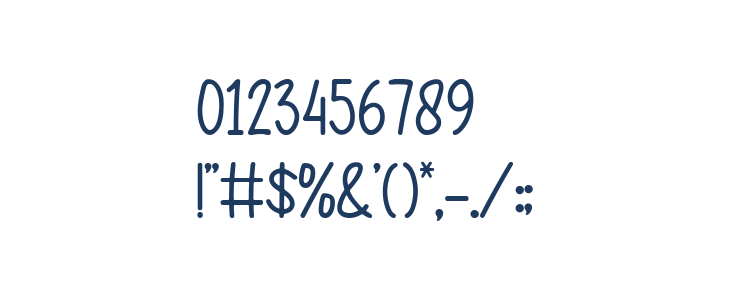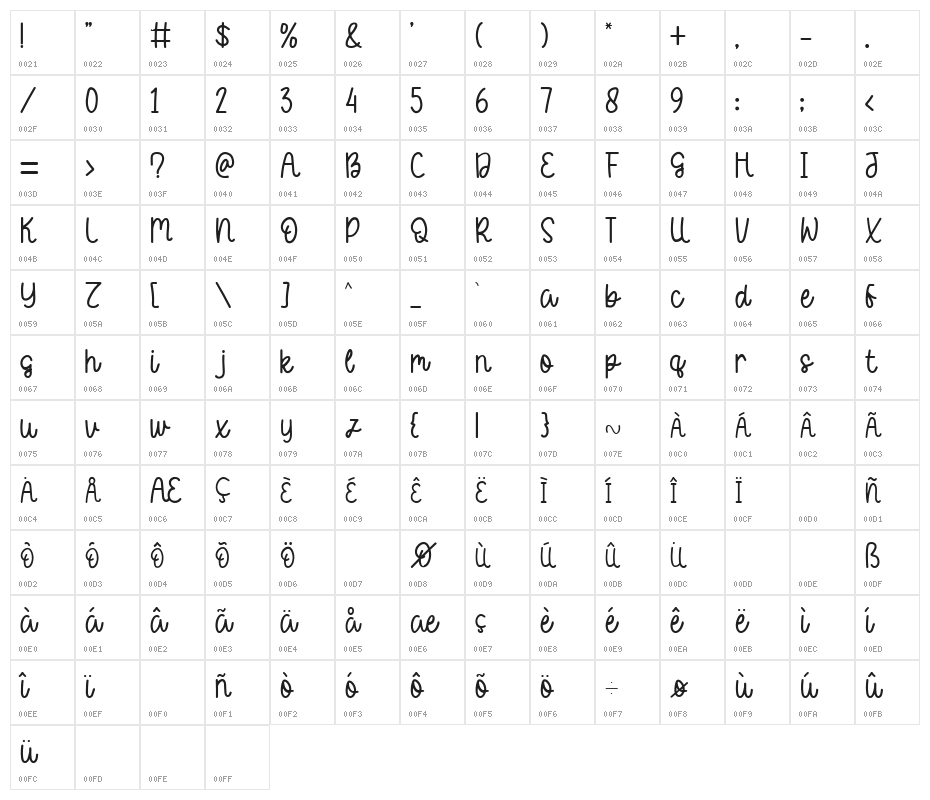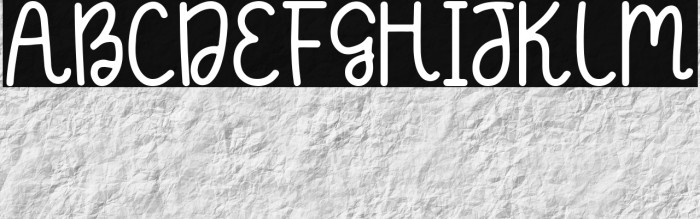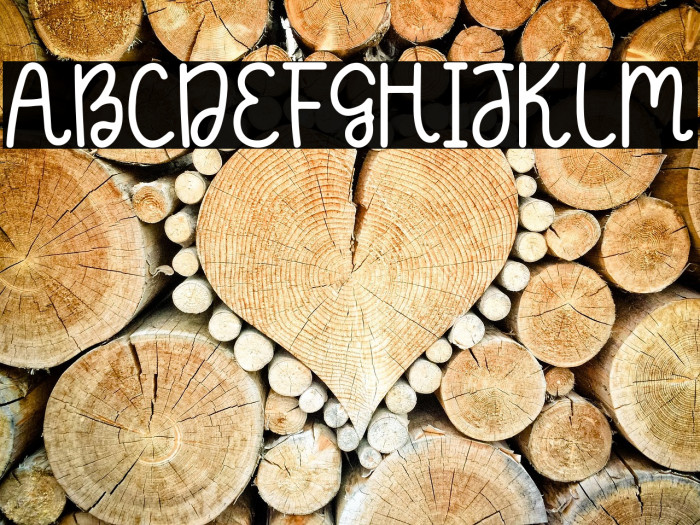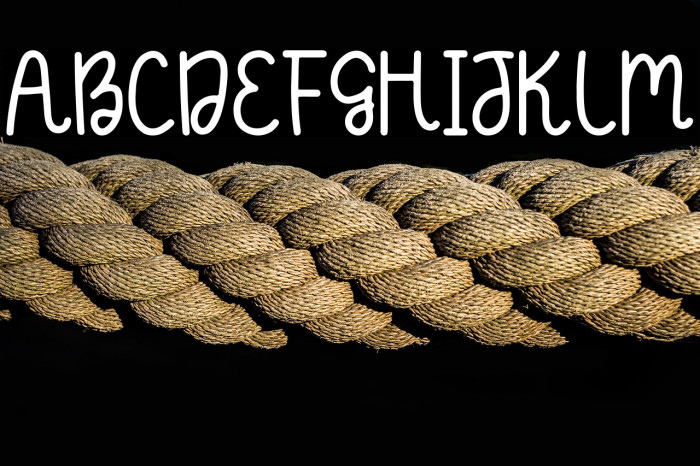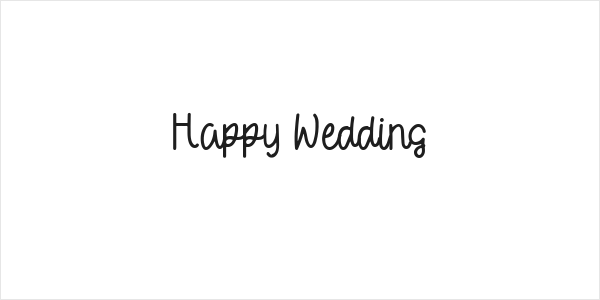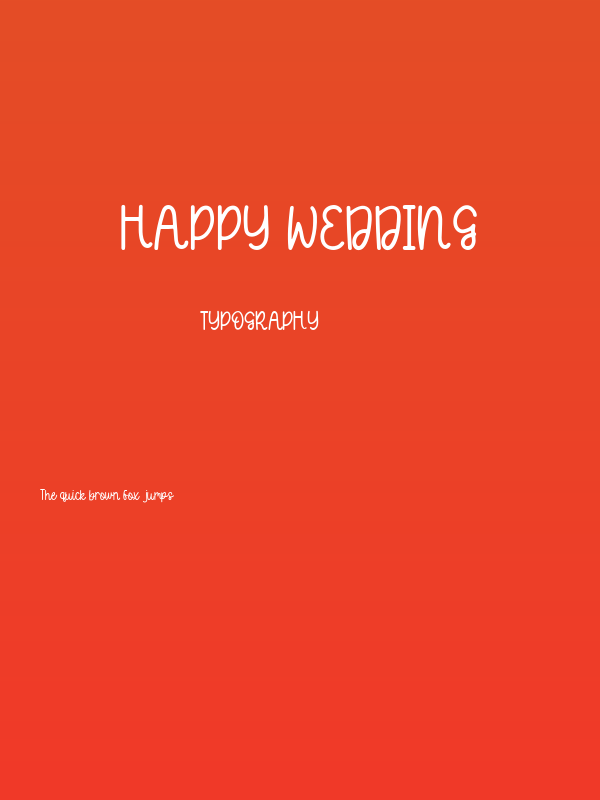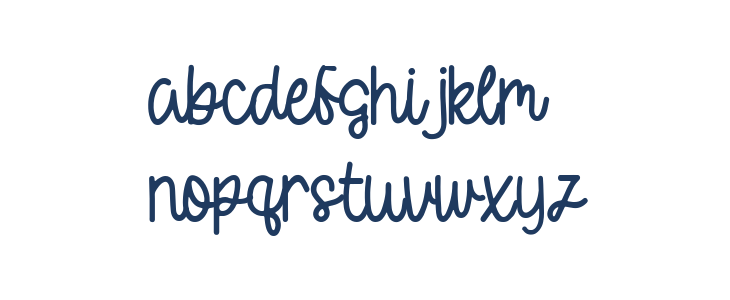
Happy Wedding Font
Happy Wedding Description
This font features a playful and whimsical style with a handwritten appearance. The characters are rounded and slightly irregular, giving a casual and friendly feel. The uppercase letters are bold and prominent, while the lowercase letters maintain a consistent flow with a slight slant, enhancing the handwritten effect. The numerals are clear and easy to read, matching the overall style. Special characters are well-integrated, maintaining the playful aesthetic. This font is ideal for projects that require a personal touch or a fun, informal vibe.
| Overall Style | Playful, Casual |
| Use Case | Headlines, Invitations, Greeting Cards |
| Proposed Projects | Ideal for wedding invitations, greeting cards, playful branding, and children's books. |